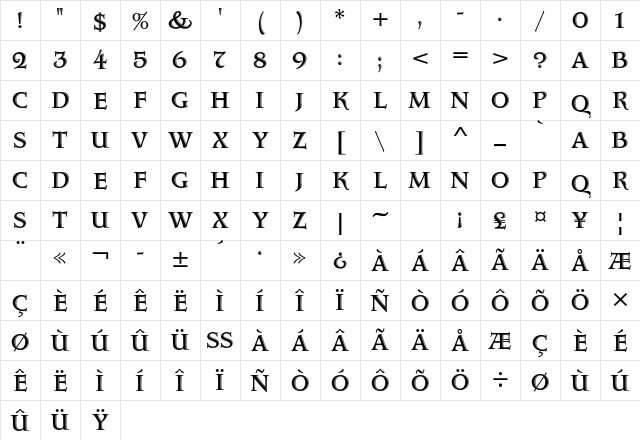
Aquitaine Initials Std Regular
Designer: Steven Albert
Design Context for Aquitaine Initials Std
Aquitaine Initials Std is a composed and adaptable typeface that performs quietly and consistently across a wide range of design contexts.